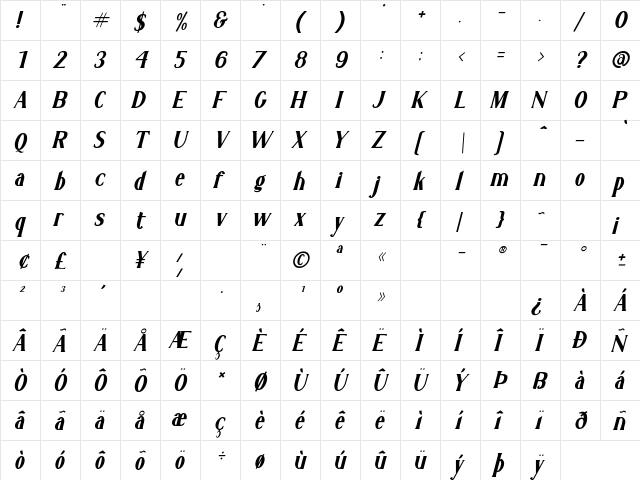
Charlotte Giselle Italic Regular
Design Context for Charlotte Giselle Italic Typeface
Charlotte Giselle Italic takes a measured approach to typography — its balanced proportions and neutral character make it a reliable workhorse for both digital and print work. Its italic angle brings a sense of urgency and motion to the letterforms.
Pro Tip: Try Charlotte Giselle Italic for annotation and caption copy alongside an upright companion — the contrast in angle creates a dynamic but ordered typographic system.